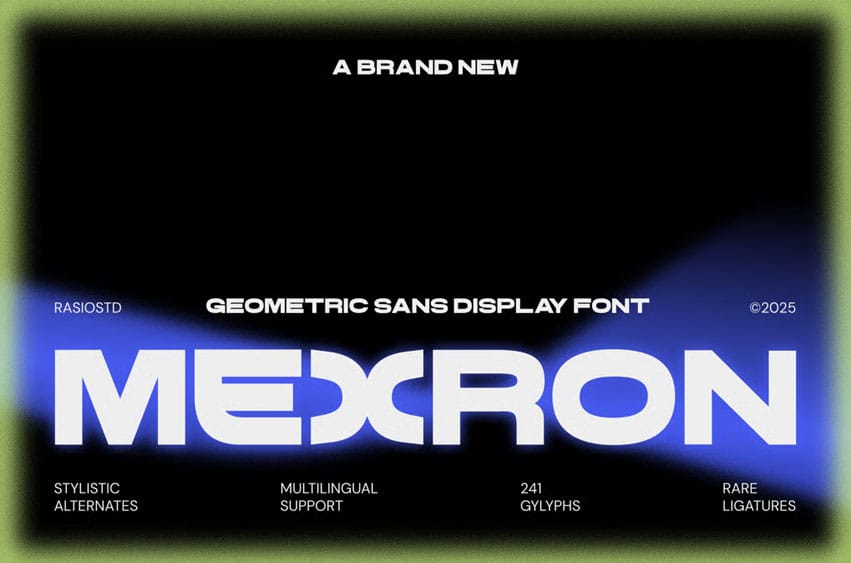
Mexron Font
Mexron Font is a geometric sans display typeface that embodies the pulse of modern technology and digital futurism. Its precise construction, bold curvature, and modular alternates create a rhythm of light and motion across every composition.
Designed for forward-thinking creatives, Mexron blends structure and style — ideal for digital interfaces, music visuals, tech branding, and experimental layouts. Includes uppercase, numerals, punctuation, stylistic alternates, ligatures, and multilingual support.
• Uppercase & Lowercase characters
• Numerals & Punctuation
• Alternate & Ligatures
• Multilingual Support